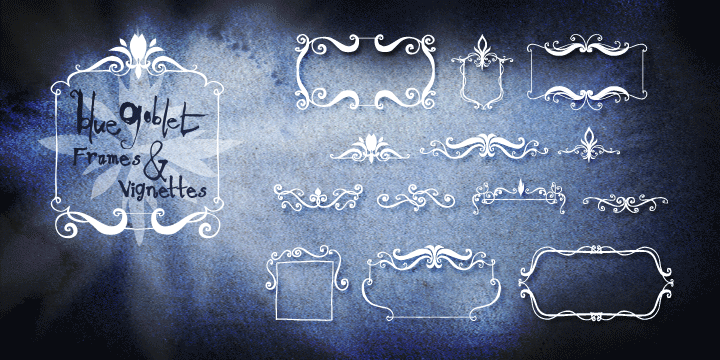
Blue Goblet Frames and Vignettes is a dingbat font family. This typeface has two styles and was published by Insigne Design.
The designer favorite Blue Goblet series has been extended once again with Cory Godbey’s Blue Goblet Frames and Vignettes. These animated and lively frames and vignettes can be resized easily without any loss of quality, and can easily be converted to outlines and modified. Combining them to form unique compositions or inserting them into chapter headings are just a few ideas for these versatile ornaments. Please see the sample .pdf to see all 96 Frames and Vignettes in action, and be sure to check out the original Blue Goblet brush script and Blue Goblet Ornaments. Blue Goblet Frames and Vignettes is a collaboration between insigne Design and Portland Studios.